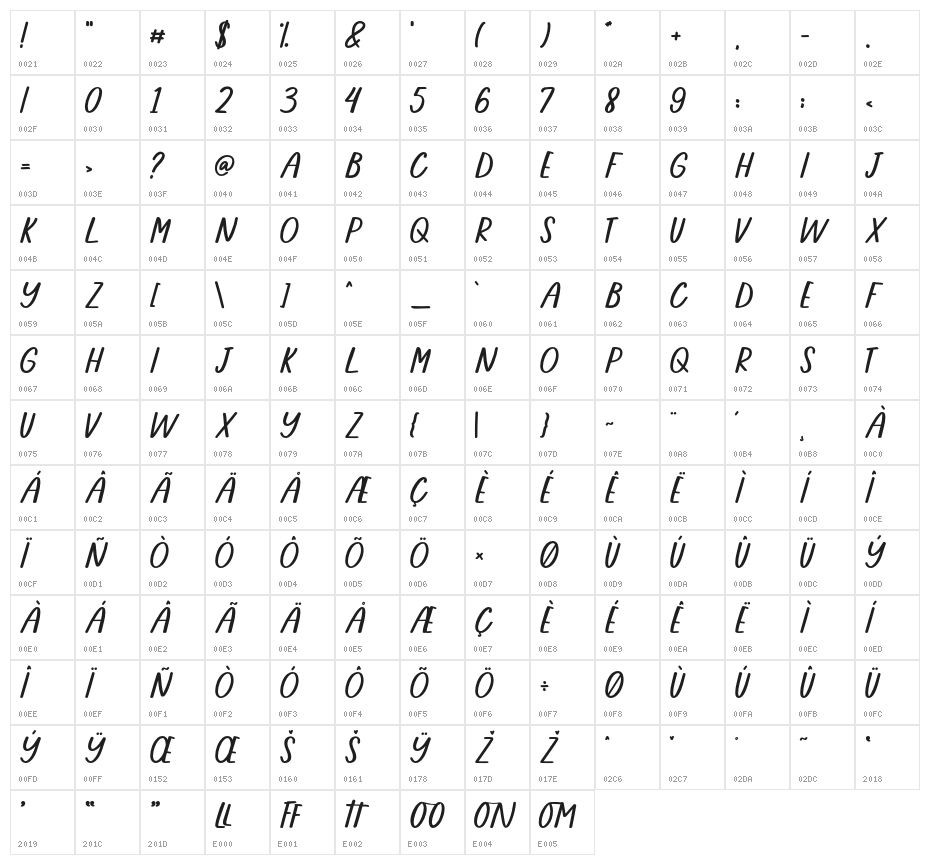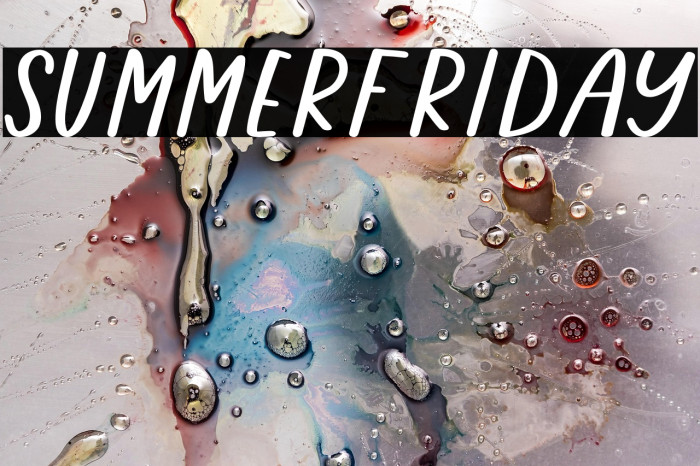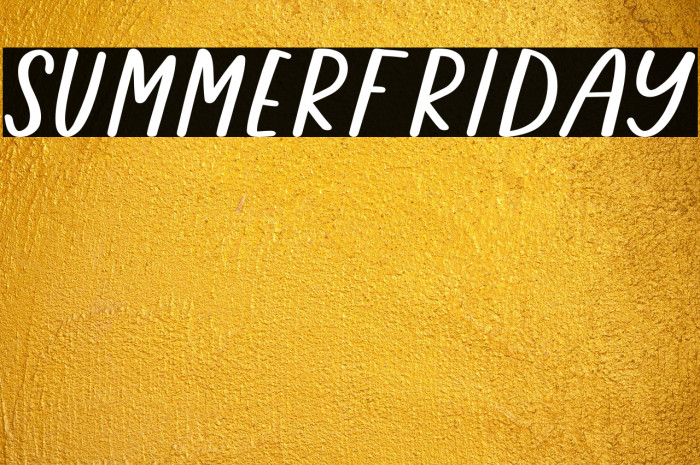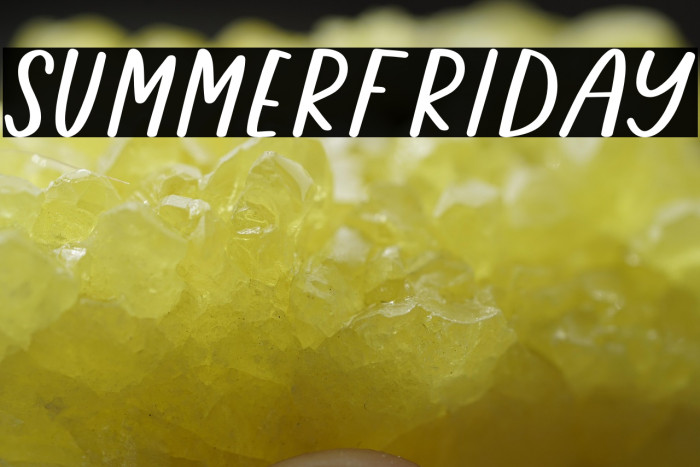
Summerfriday Font
Summerfriday Description
This font exudes a casual and friendly vibe with its handwritten style, featuring smooth and flowing curves. The characters are slightly slanted, adding a dynamic and lively feel. Each letter is distinct yet cohesive, maintaining a consistent stroke width throughout. The numerals and special characters complement the alphabet with similar styling, ensuring uniformity across all text. Ideal for projects that require a personal touch, this font is both approachable and versatile.
| Overall Style | Casual |
| Use Case | Logos, Headlines, Informal text |
| Proposed Projects | Perfect for greeting cards, invitations, personal branding, and social media graphics. |